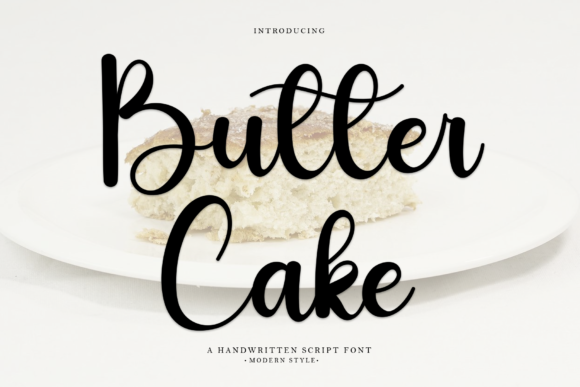
Introducing Butter Cake Font – A Culinary Delight for Your Design Palette
Step into a world of delectable typography with Butter Cake Font, a script font that tantalizes the senses with its smooth curves and luscious appeal. Inspired by the rich, velvety texture of freshly baked butter cake, this font is a feast for the eyes, adding a touch of elegance and charm to any design project.
Indulge in the Sweetness of Creation
With Butter Cake Font, your words take on a life of their own, flowing effortlessly across the page like a ribbon of melted chocolate. This font is perfect for adding a personal touch to invitations, greeting cards, and other special occasions. Let your creativity flourish as you explore its versatile range of applications, from branding and logos to social media posts and marketing materials.
Savor the Elegance of Simplicity
Butter Cake Font's unassuming beauty lies in its simplicity. Its clean lines and understated charm make it a timeless choice for any design project. Whether you're crafting a minimalist logo or a heartfelt letter, this font adds a touch of sophistication without overpowering your message.
A Culinary Symphony for the Senses
Butter Cake Font is more than just a font; it's a sensory experience. Its smooth curves evoke the velvety texture of freshly baked cake, while its delicate strokes hint at the sweet aroma of vanilla and butter. Close your eyes and let your fingers dance across the keyboard, and you can almost taste the deliciousness of this typographic treat.
Let Your Designs Bloom with Butter Cake Font
With Butter Cake Font, your designs will blossom with newfound beauty. Its elegant curves and timeless appeal make it the perfect choice for adding a touch of sophistication to any project. Whether you're a seasoned designer or just starting out, this font will elevate your work to new heights, leaving a lasting impression on your audience.